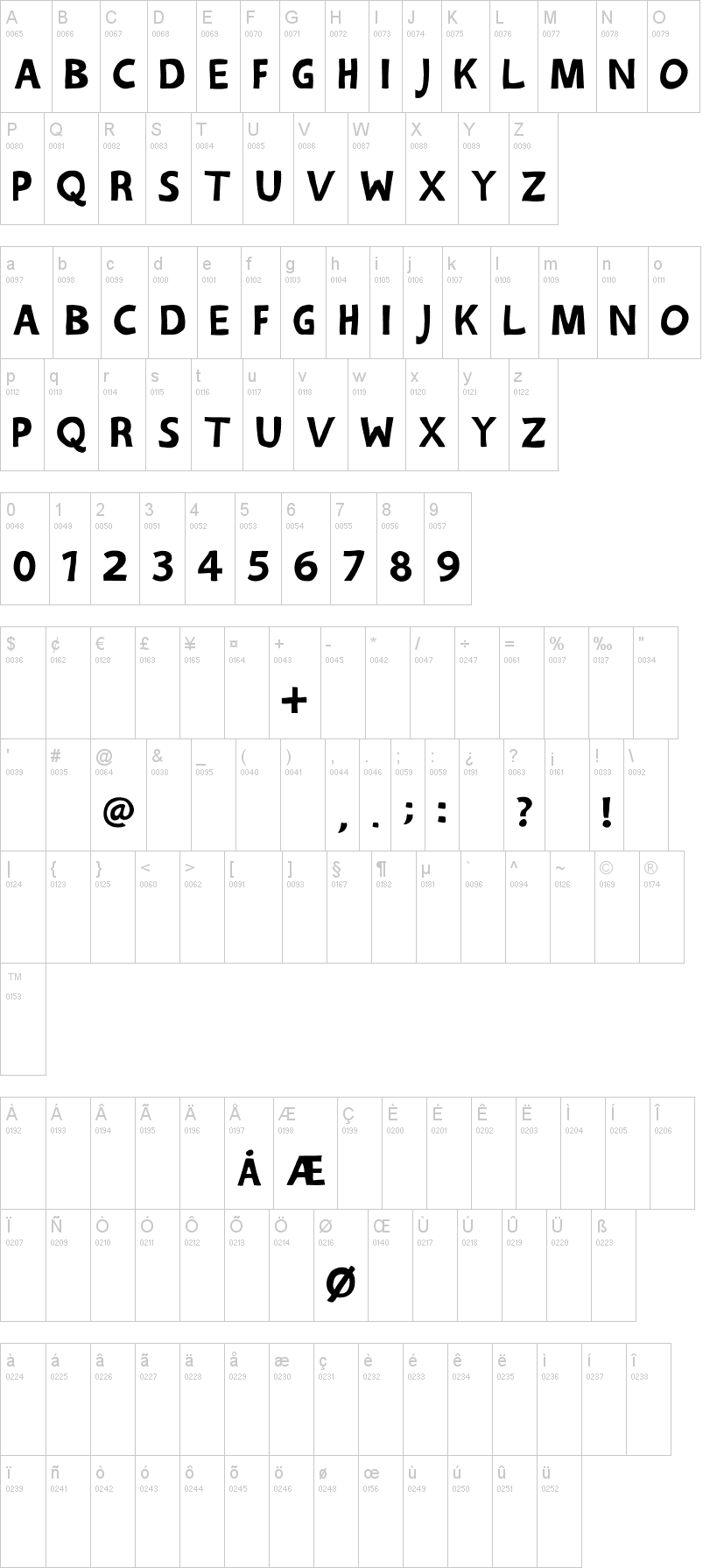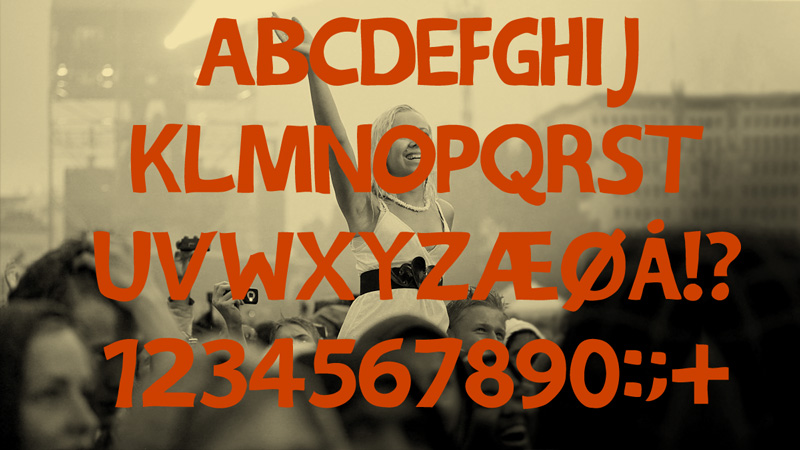
Note of the authorThis font was used on some headings/intro text for a new online series over @ NRK P3 named Festival Jomfruer (festival virgins) So, after drawing a lot of letters, I found out that I might just make a font out of it. And of course it should be free.